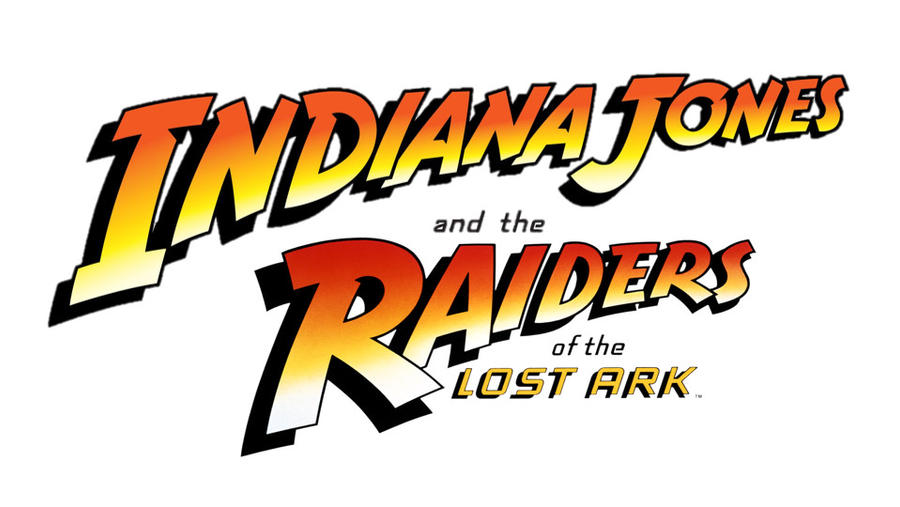
Raiders Of The Lost Ark Font
Raiders Of The Lost Ark Font - Adventure is a pulpy, decorative font is based on the main logo of the indiana jones. Web about adventure font.
Adventure Is A Pulpy, Decorative Font Is Based On The Main Logo Of The Indiana Jones.